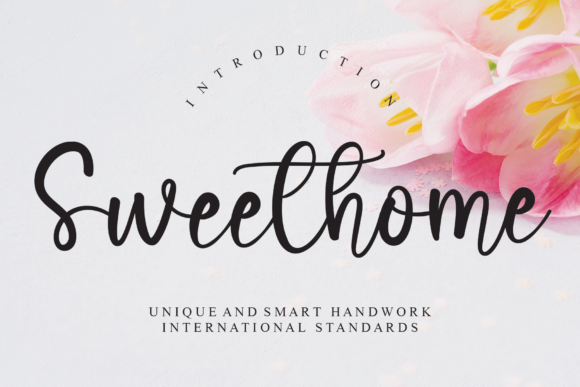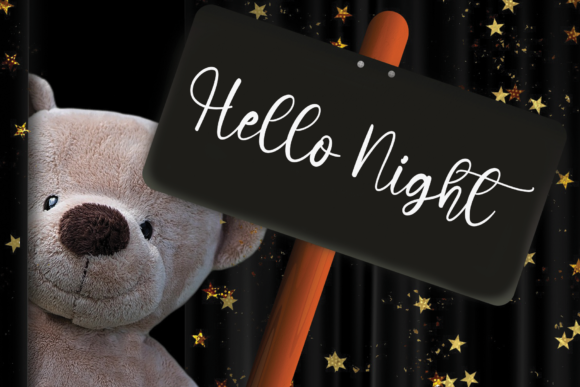
Sweethome Font
About Sweethome Font
Sweethome is a well balanced and round lettered calligraphy typeface with characters that dance along the baseline. It will add a luxury spark to any design project that you wish to create!